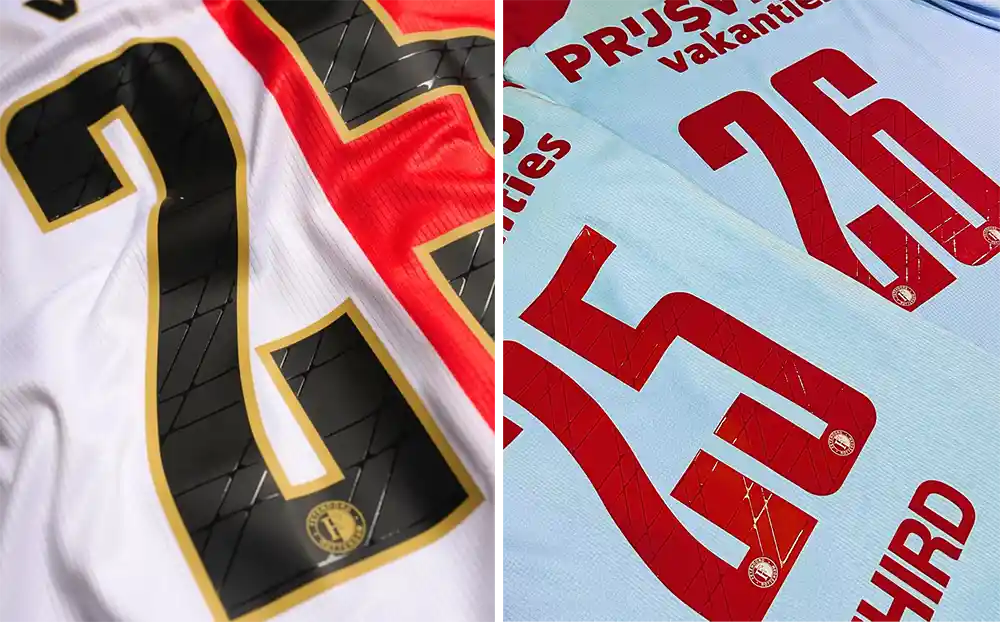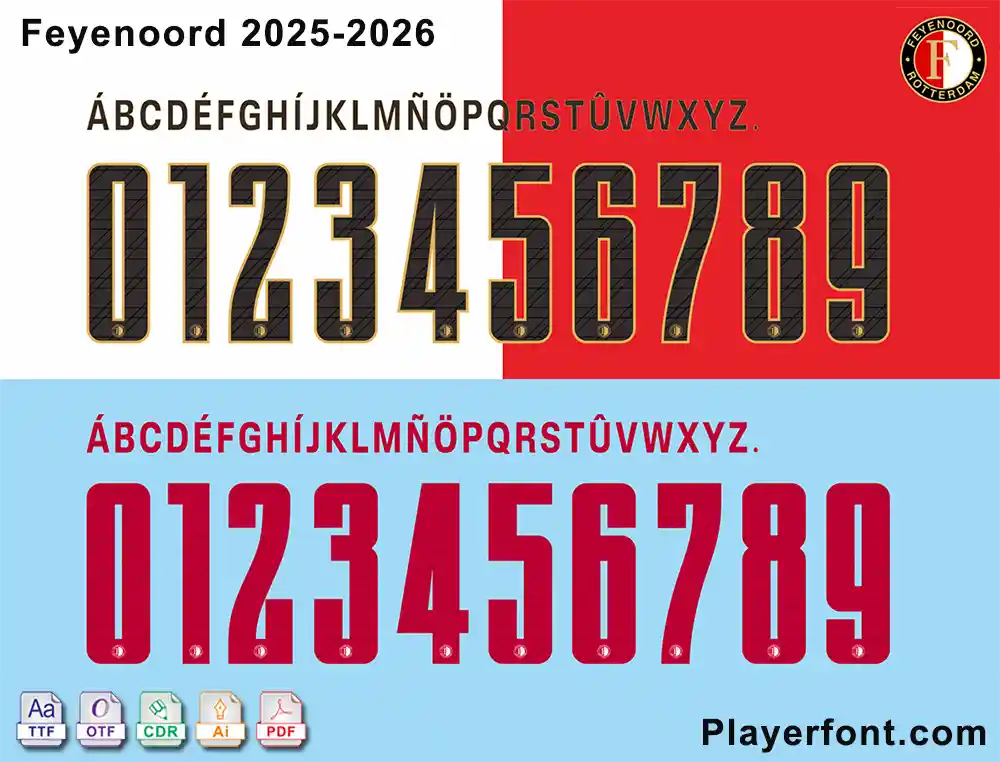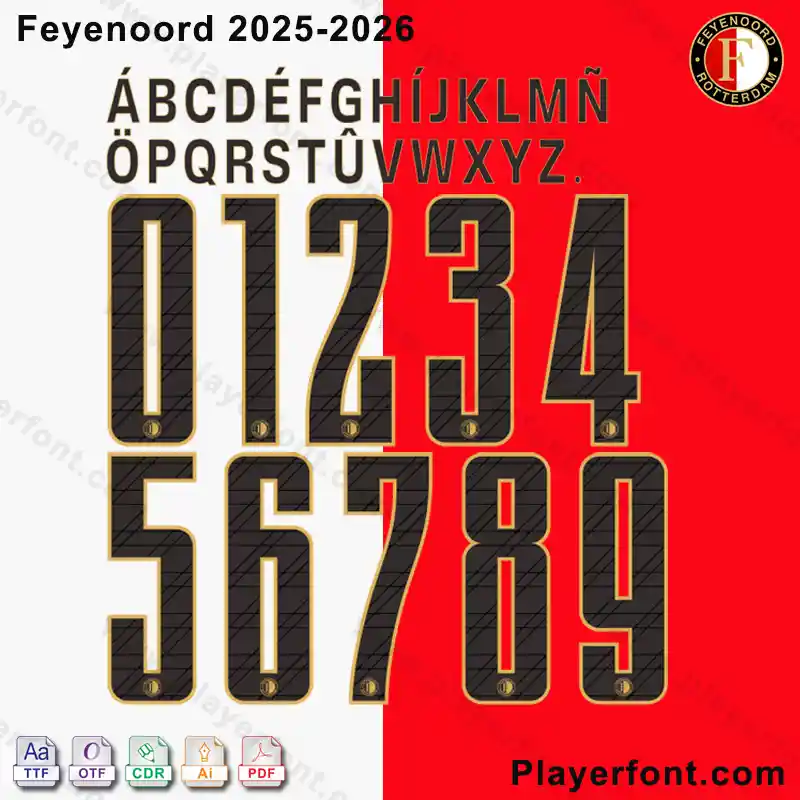
Enhance your sports merchandise with the official Feyenoord 2025-2026 Font, designed for the iconic Rotterdam football club. This font package includes TTF, OTF, AI, CDR, and PDF vector files, ideal for creating authentic jersey numbers, logos, and fan gear. Featuring a bold, modern design with red, white, and black accents, this font captures the spirit of Feyenoord’s 2025-2026 season. Perfect for designers, fans, and businesses looking to produce high-quality sportswear and promotional materials. Easy to install and compatible with major design software.